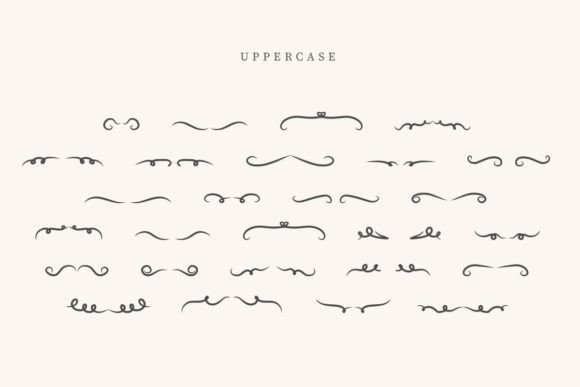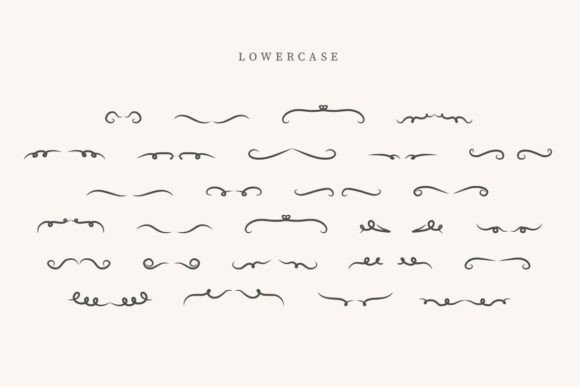
Introduction to Monogram Divider Font
Remember that moment when you finally found the perfect font to elevate your creative project? It’s like finding the missing puzzle piece that brings your design to life. For many designers, that moment came when they stumbled upon the Monogram Divider Font – a stunning dingbat font illustration of beautiful foliage divider lines.
With its high-quality design and transparent background, this font is a game-changer for any creative project. Whether you’re crafting t-shirts, logos, decorations, or invitations, the Monogram Divider Font is the perfect design resource to take your work to the next level. And the best part? It’s available for free download, making it accessible to designers of all levels.
As a valuable addition to any designer’s toolkit, the Monogram Divider Font offers endless possibilities for creative expression. From scrapbooks to planners, journals to clip art, this versatile font is sure to inspire your next design project.
Key Features of Monogram Divider Font
- High-quality design suitable for various creative projects
- Unique monogram divider design with transparent background for versatility
- Perfect for use in graphic design, digital art, and other creative applications
Honest Review: Monogram Divider Font
I recently stumbled upon the Monogram Divider Font, and I must say, it’s a fantastic design resource. This font is perfect for any creative project that requires a touch of elegance and sophistication.
What works well with this font is its high quality and versatility. It’s available for free download, which is a major plus. The transparent background makes it easy to incorporate into any design, whether it’s a logo, poster, or even a simple social media graphic.
- ✨ High-quality design
- ✨ Versatile and easy to use
- ✨ Transparent background for seamless integration
However, I did notice a few limitations with this font. ⚠️ The font is quite limited in its style, which might not be ideal for projects that require a lot of customization. Additionally, some users may find the font too ornate, which could be a drawback for simpler designs.
Overall, I’m impressed with the Monogram Divider Font. While it may not be perfect for every design project, it’s a great resource to have in your toolkit. With its high quality and free download, it’s definitely worth checking out.
Monogram Divider Font is commonly used for creating custom logos, social media graphics, and presentations. It’s also a great option for designers who need a high-quality font with a transparent background.
Tips for Getting the Most Out of Monogram Divider Font
To get the most out of Monogram Divider Font, experiment with different font sizes, colors, and combinations to achieve the desired design effect. Additionally, use the font in conjunction with other design elements to create a visually appealing design.
Monstera Font compares to Monogram Divider Font in terms of its high-end look and feel, but it lacks the monogram-style design that Monogram Divider Font is known for. Use Monstera Font for projects that require a more refined and elegant look.